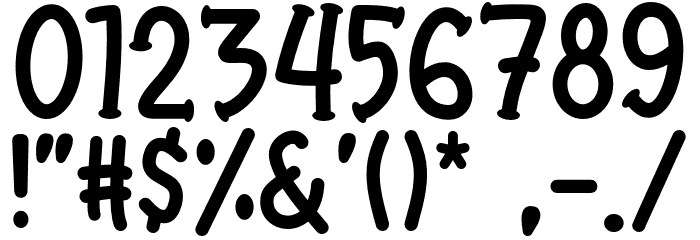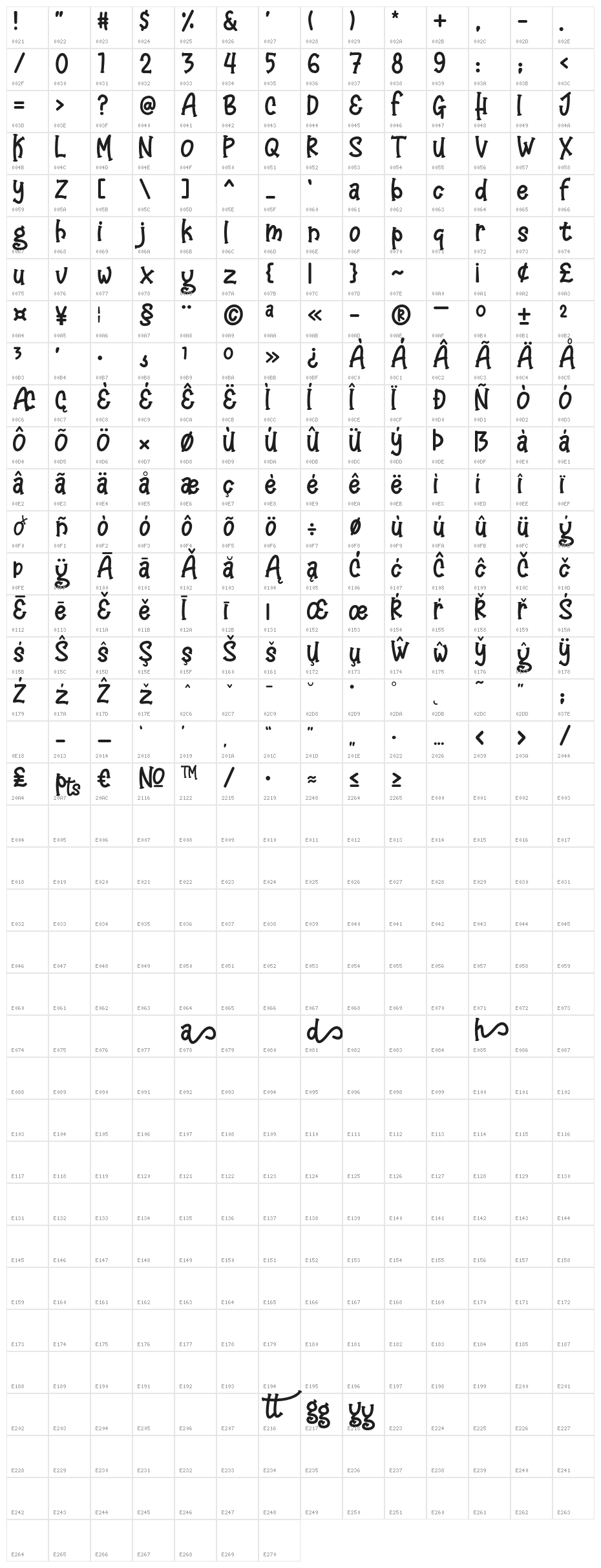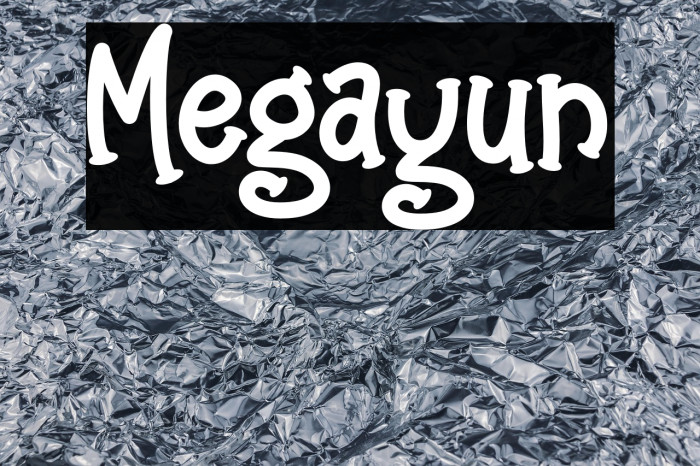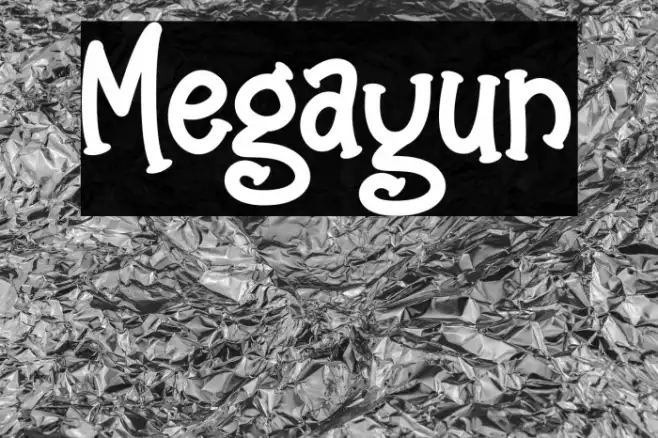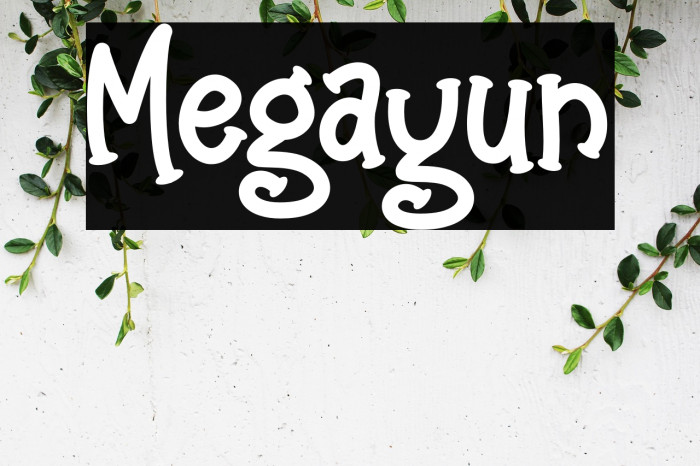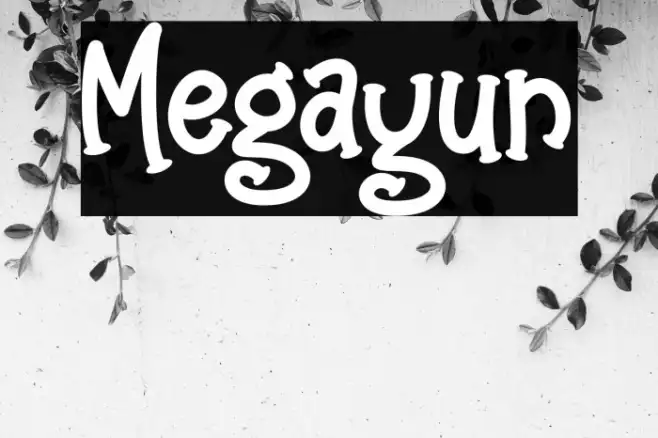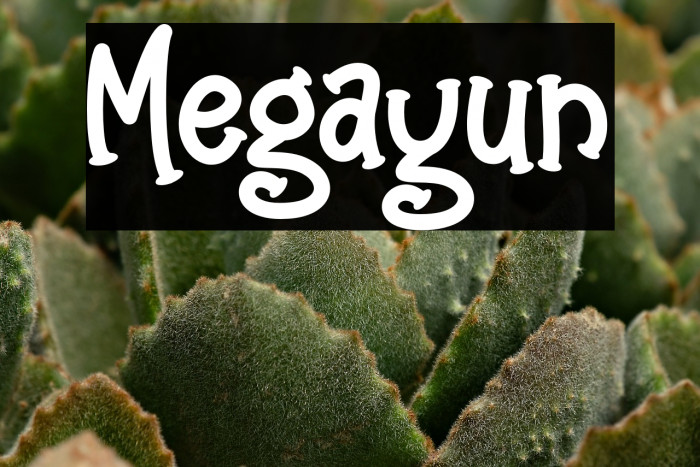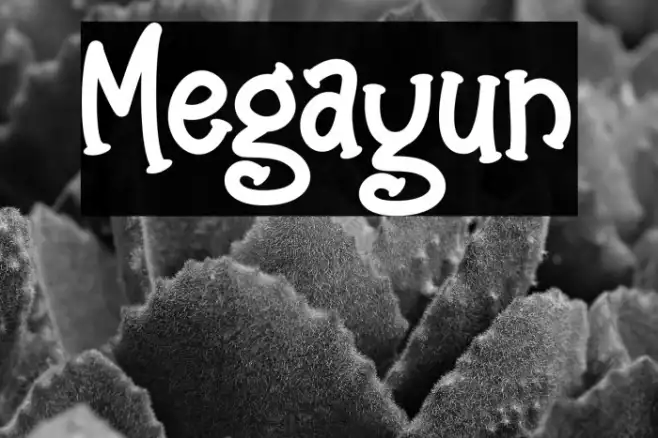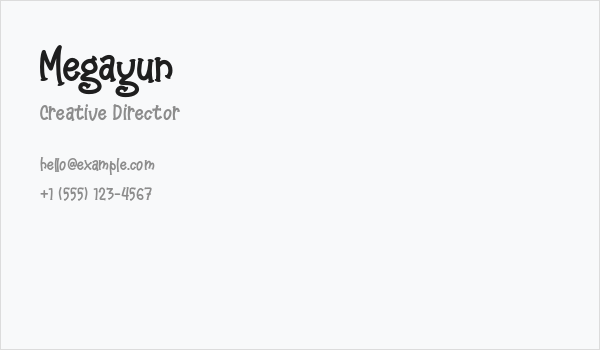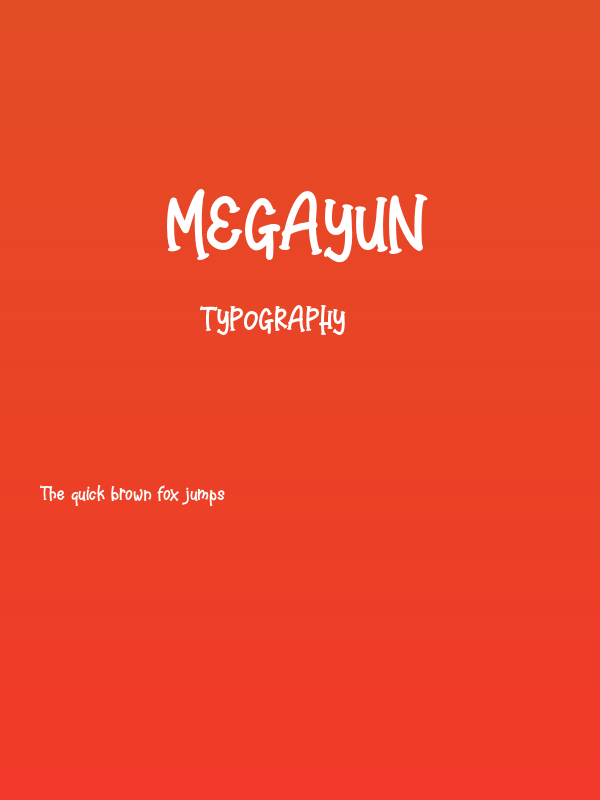
Megayun Font
Megayun Description
This playful and bold font features a hand-drawn aesthetic with a whimsical touch. The characters are slightly irregular, adding a sense of fun and creativity. The strokes are thick and rounded, giving the font a friendly and approachable feel. The uppercase and lowercase letters maintain a consistent style, with a slight tilt that enhances its casual appearance. Numbers and special characters are designed to match the overall playful theme, making this font suitable for projects that require a lively and informal tone.